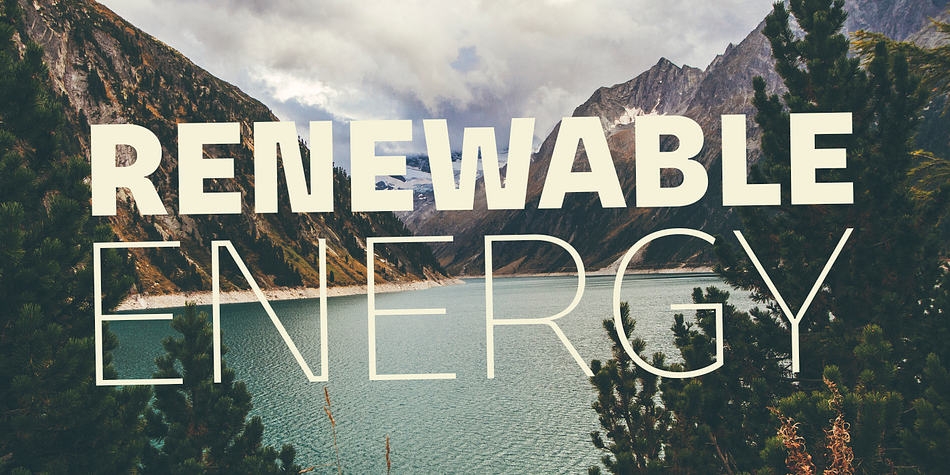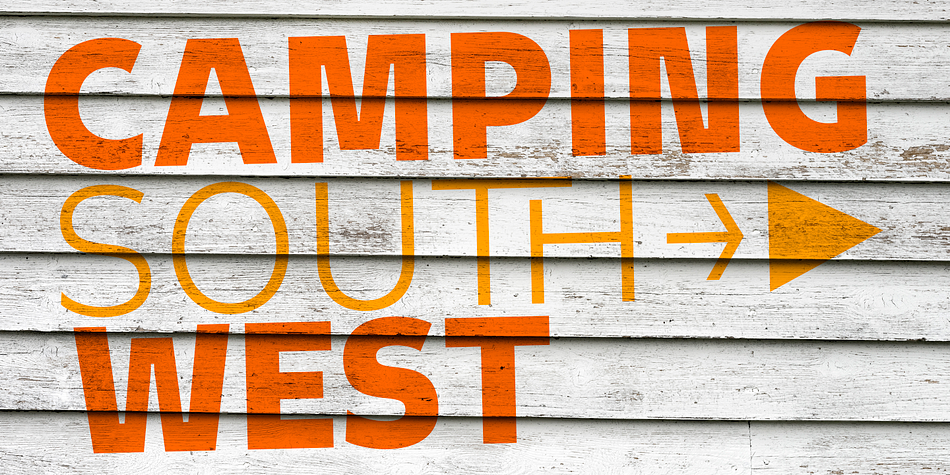
Meche Pro
Designed by Rodrigo Salas, Bruno Jara and Andrey Kudryavtsev, Meche Pro is a sans serif and stencil font family. This typeface has twelve styles and was published by Rodrigo Typo.
Meche Pro it is a geometric typeface family with a semi-formal touch, it contains 12 variants, from the Thin to Black and Stencil Thin to Black versions, plus Cyrillic alphabet with alternatives and different ligatures was added, especially for titles
Foundry Rodrigo Typo
Styles Sans Serif, Stencil
Designers Rodrigo Araya Salas, Bruno Jara, Andrey Kudryavtsev